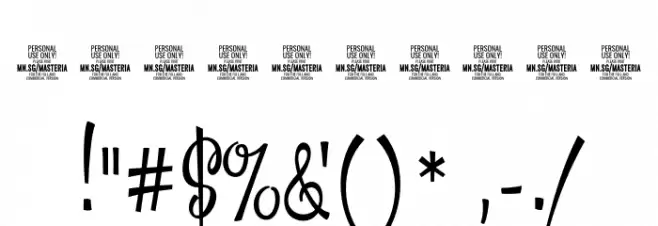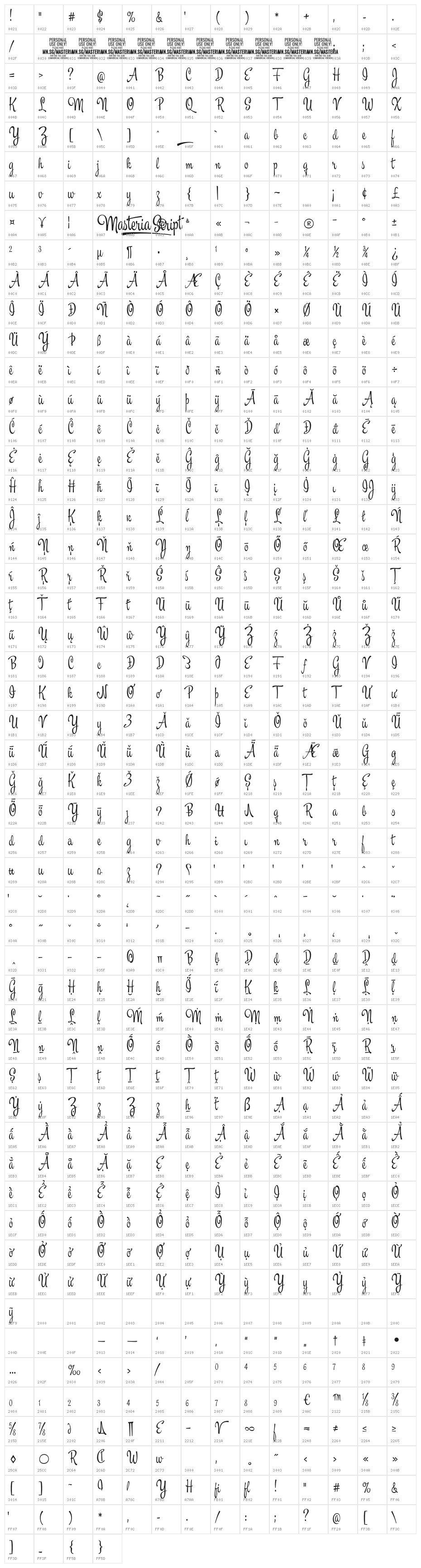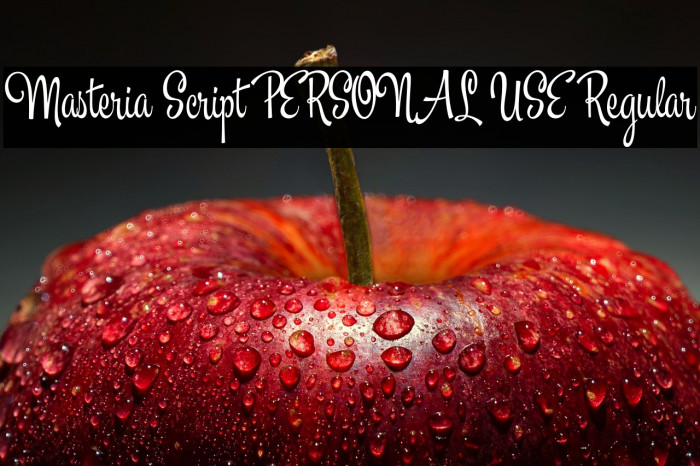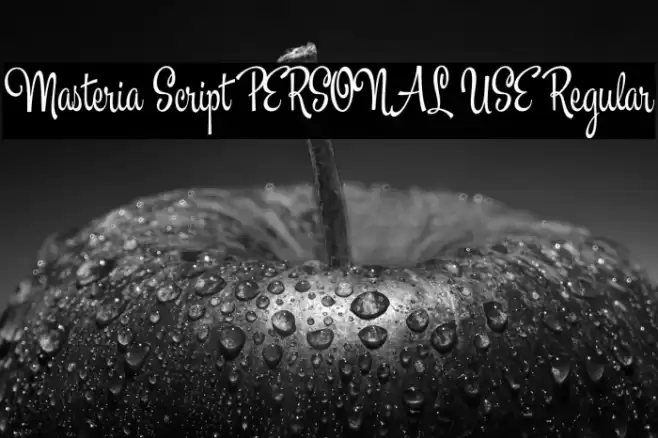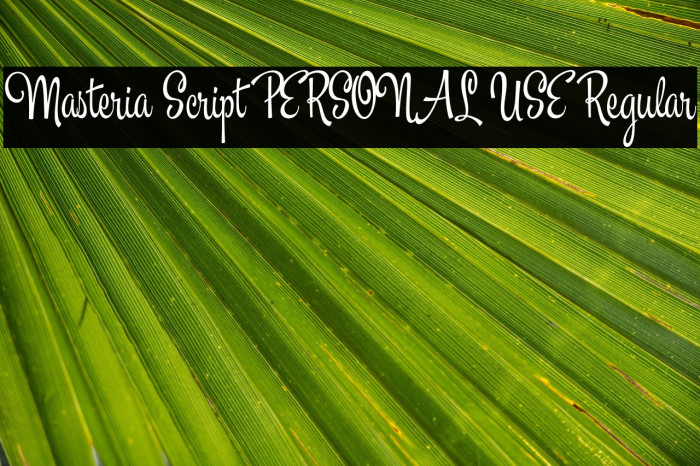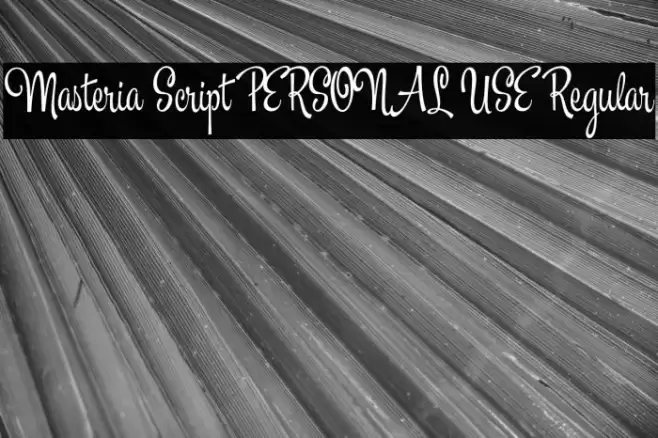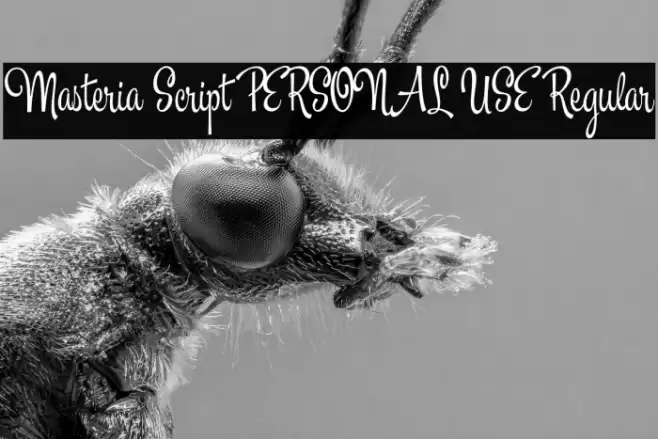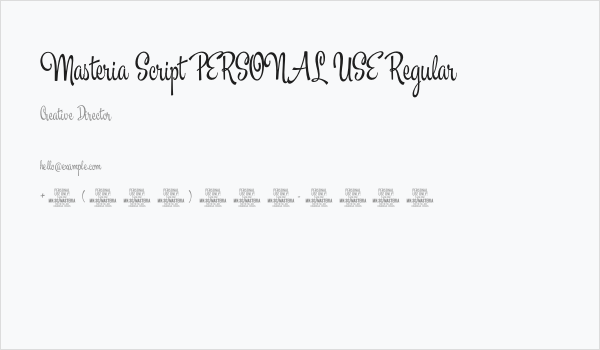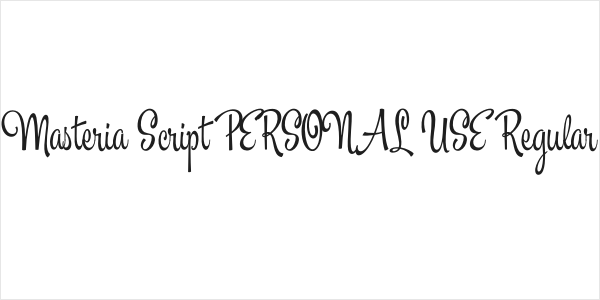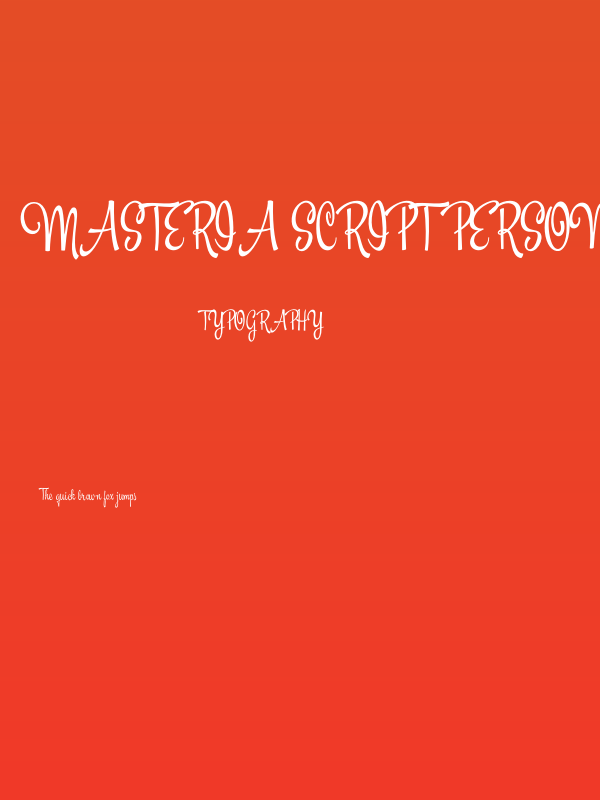
Masteria Script PERSONAL USE Regular Font
Masteria Script PERSONAL USE Regular Description
This script font features a flowing, elegant design with a handwritten aesthetic. The uppercase letters are characterized by their tall, sweeping ascenders and descenders, giving them a graceful and dynamic appearance. The lowercase letters maintain a consistent style, with smooth curves and a slightly slanted orientation that enhances the script's fluidity. The numerals and special characters are designed to complement the overall style, maintaining the same elegant curves and strokes. This font exudes a sense of sophistication and creativity, making it ideal for projects that require a personal touch.